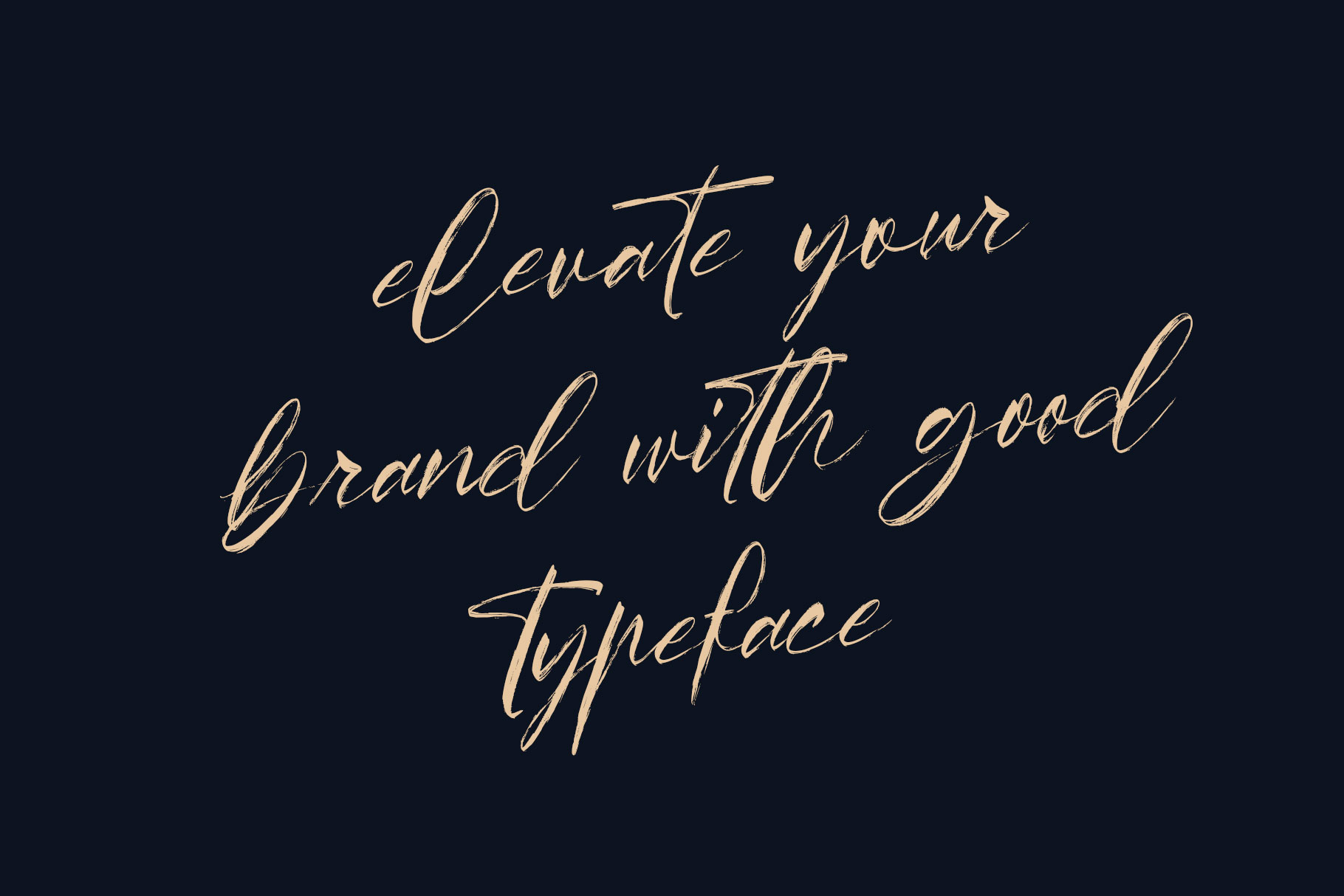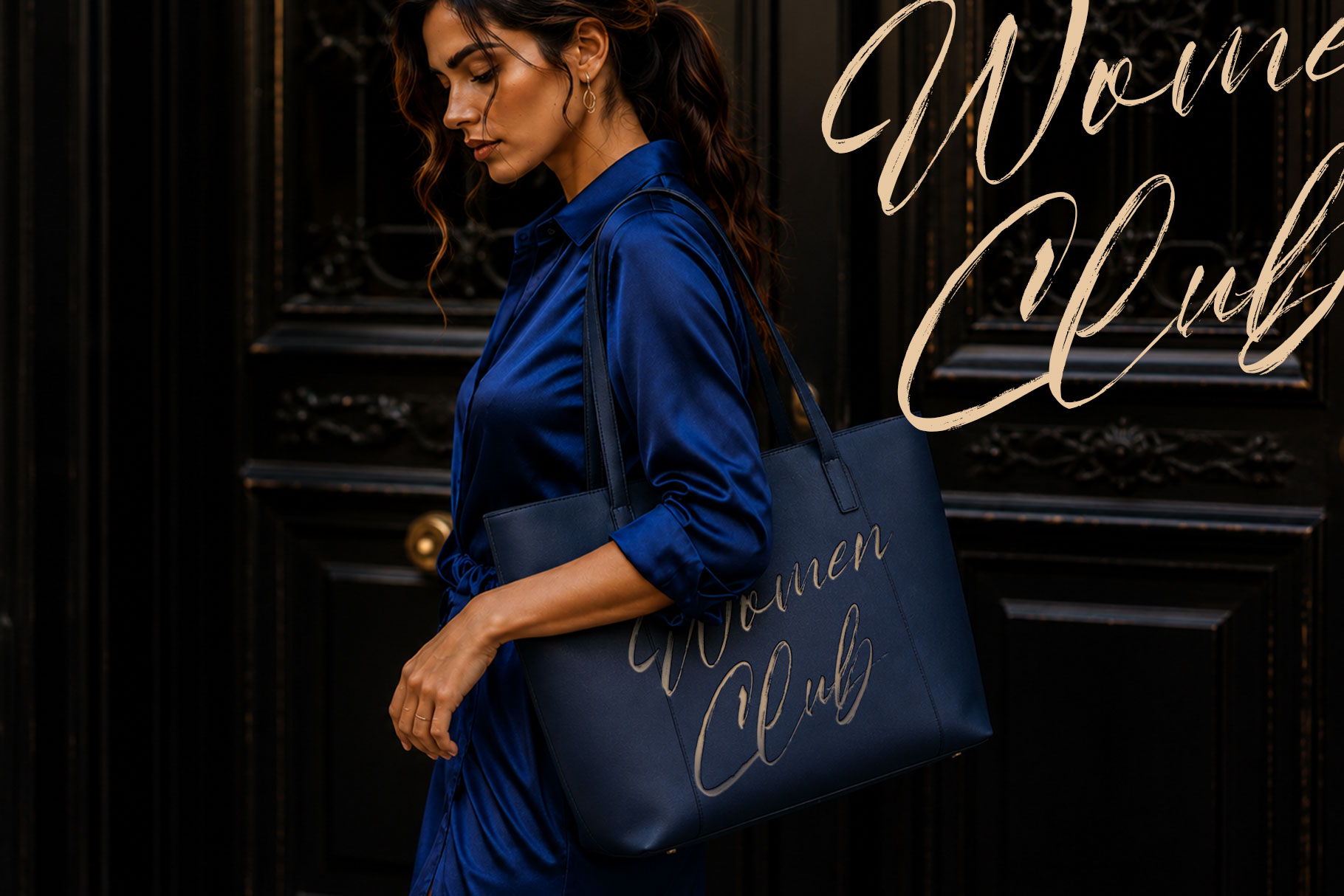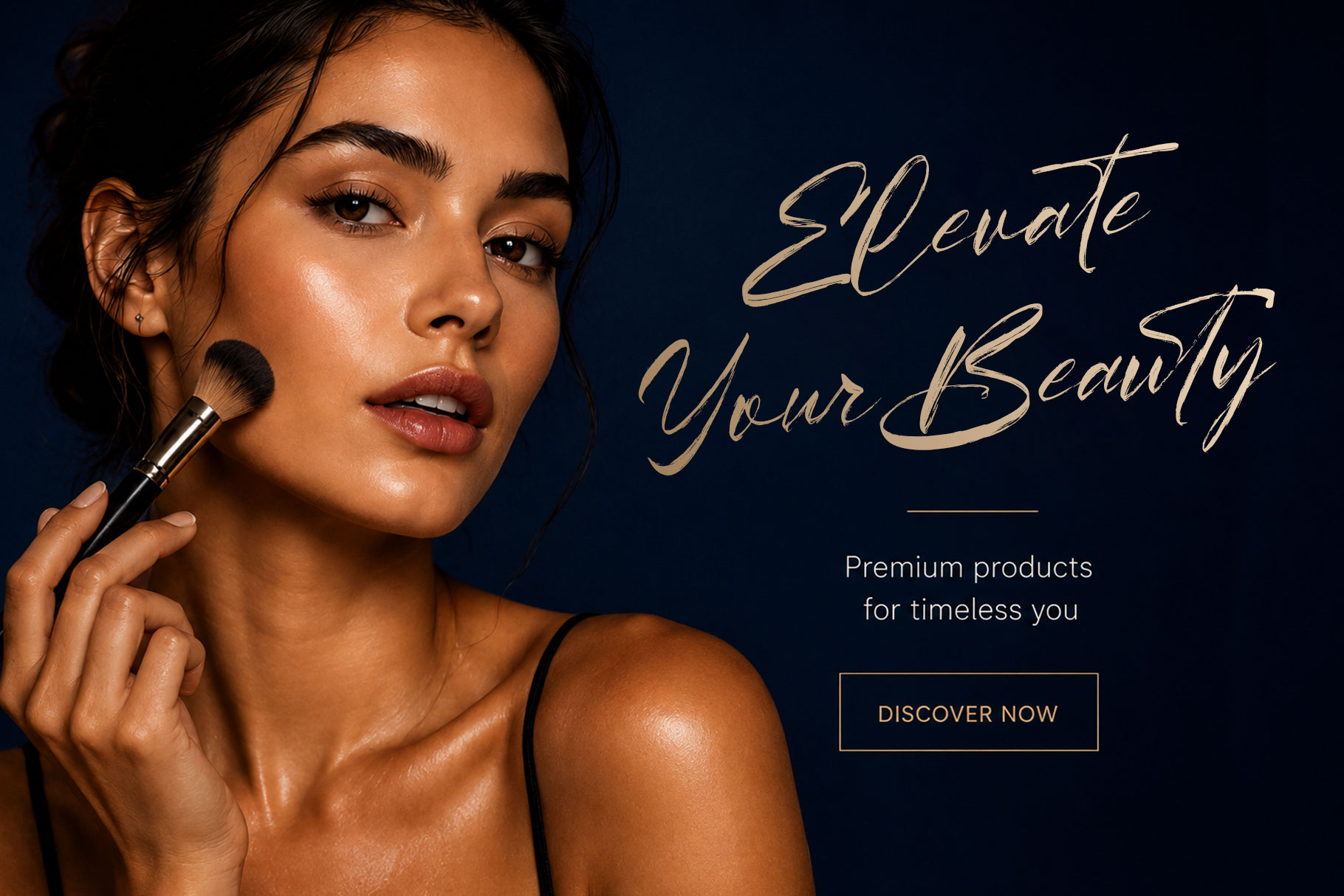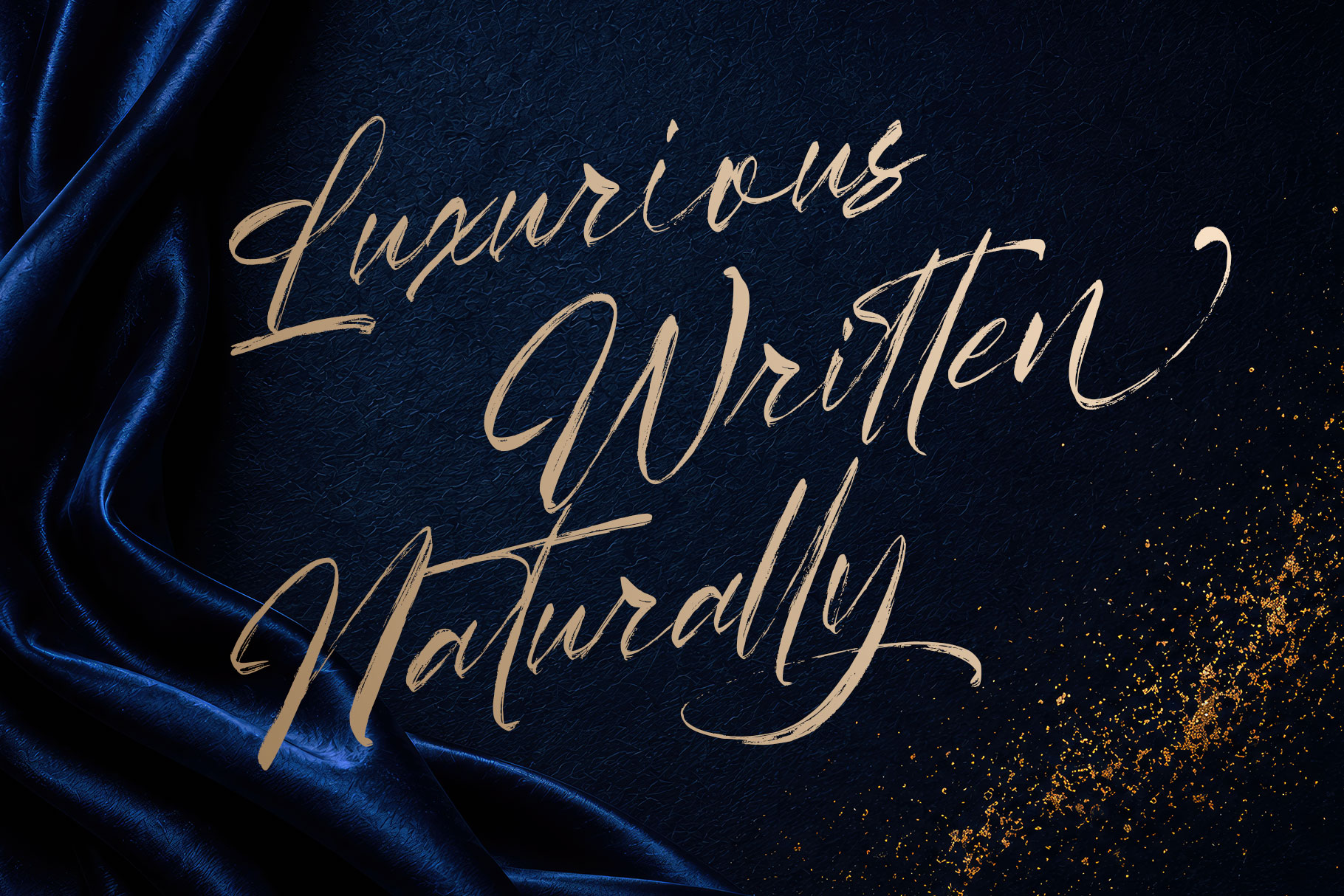
Shilven is Elegant brush font embrace grace and luxurious. Shilven is a perfectly choice for any creative endeavor, creating, modern, lifestyle design such as logotype, title, cover, branding, display and magazine, social media posts, advertisements, printed quotes, product packaging, corporate brand, product designs, labels, photography, watermarks, special events and any other project with elegant touch.
Shilven Elegant Brush Font